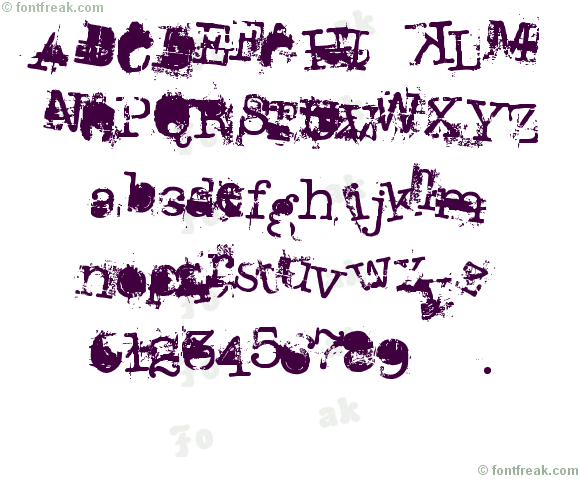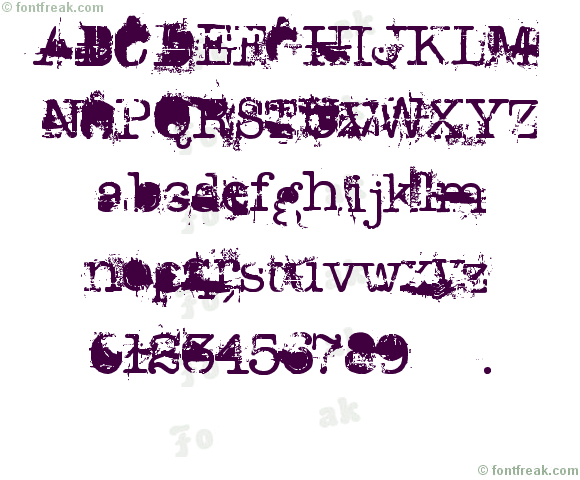
Don Giovonni
Don Giovonni Makin Enemies
About Don Giovonni
The Don Giovonni font by Pennyzine is a distinctive display typeface that captures a unique blend of artistic flair and rugged charm. This font embodies a hand-crafted aesthetic, characterized by its irregular stroke weight and textured finish, which gives it a vintage, almost rebellious feel. The contrast in its letterforms adds depth, while the slightly uneven spacing enhances its organic appearance, making it an ideal choice for projects that seek to convey authenticity and character.
Suitable for a variety of creative applications, Don Giovonni excels in settings such as wedding invitations, where its playful yet elegant style can add a personal touch. It also shines in movie posters, providing a bold statement that draws attention and evokes intrigue. Additionally, it's perfect for restaurant menus, particularly those that aim for a rustic or eclectic vibe, allowing culinary creations to stand out. Small business branding, especially for artisanal or creative ventures, can also benefit from the font’s unique personality, helping to establish a memorable identity.
What sets the Don Giovonni font apart is its ability to convey a sense of individuality and creativity. Its raw, unrefined look resonates with audiences who appreciate artistic expression, ensuring that any project utilizing this font stands out in a crowded landscape. Whether for personal or professional use, Don Giovonni brings a unique voice to any design endeavor.